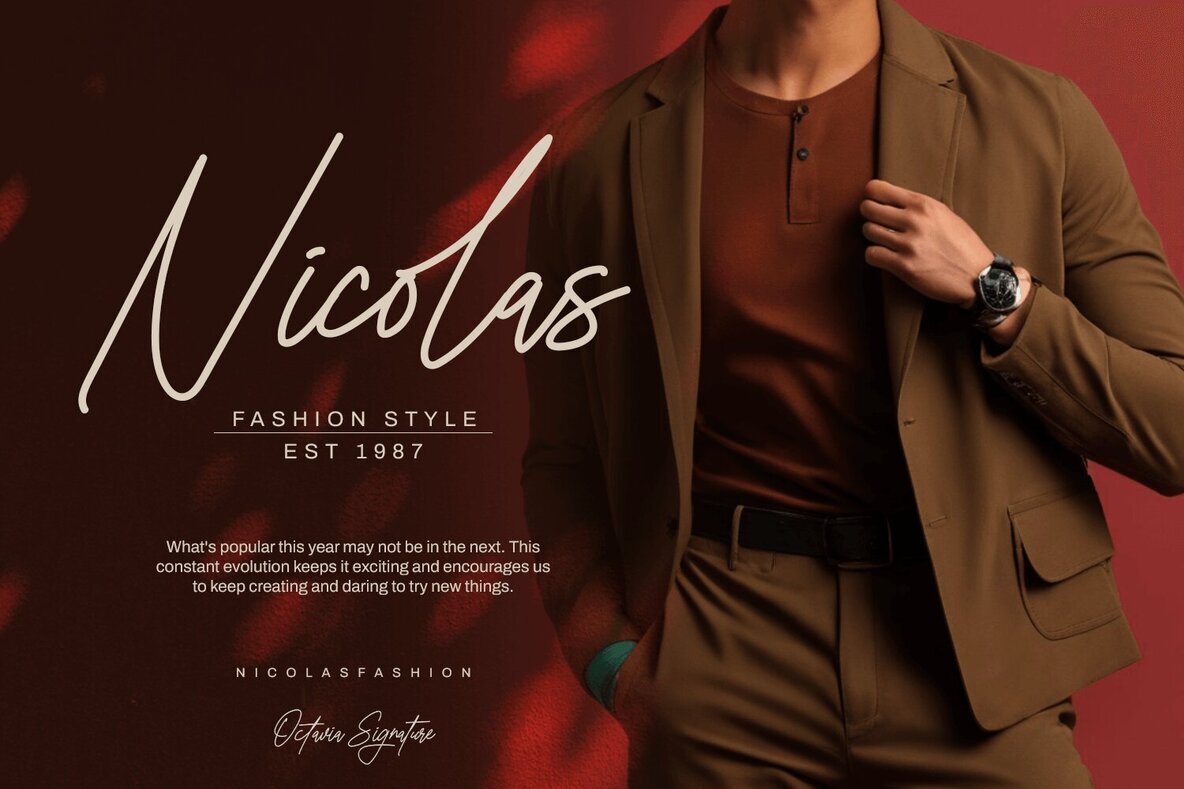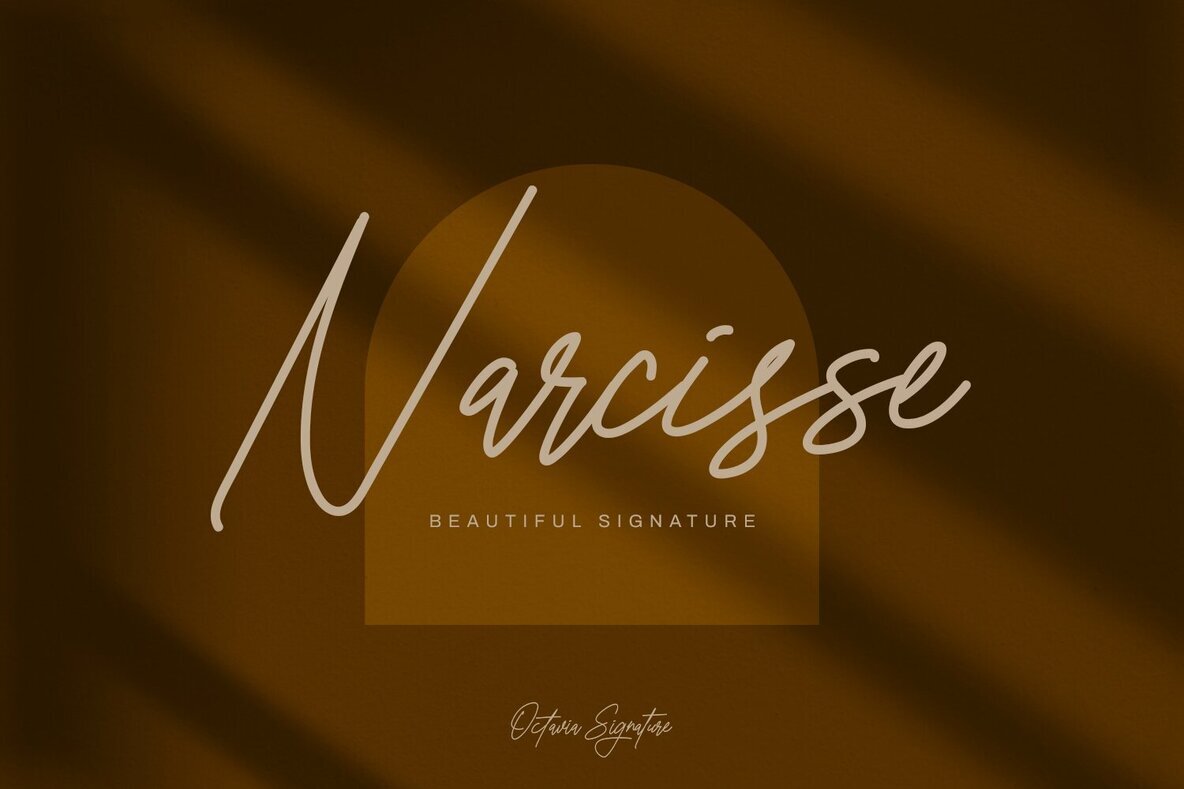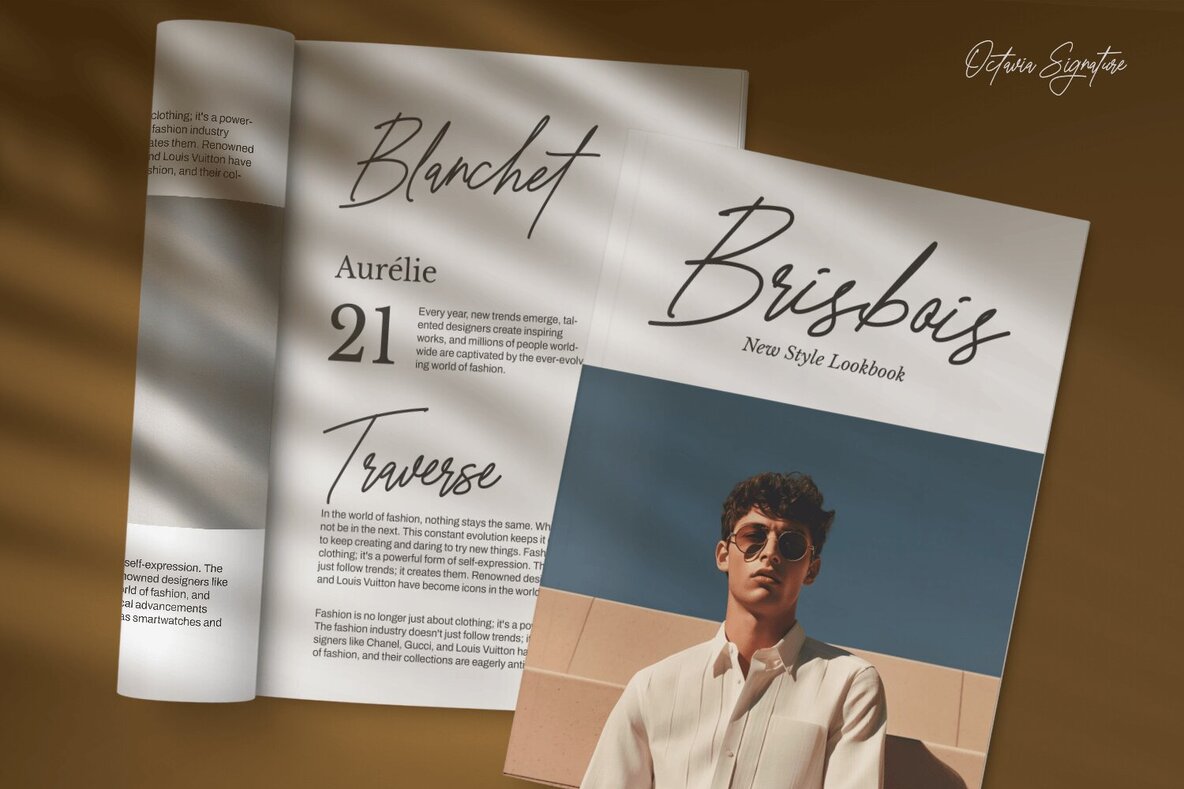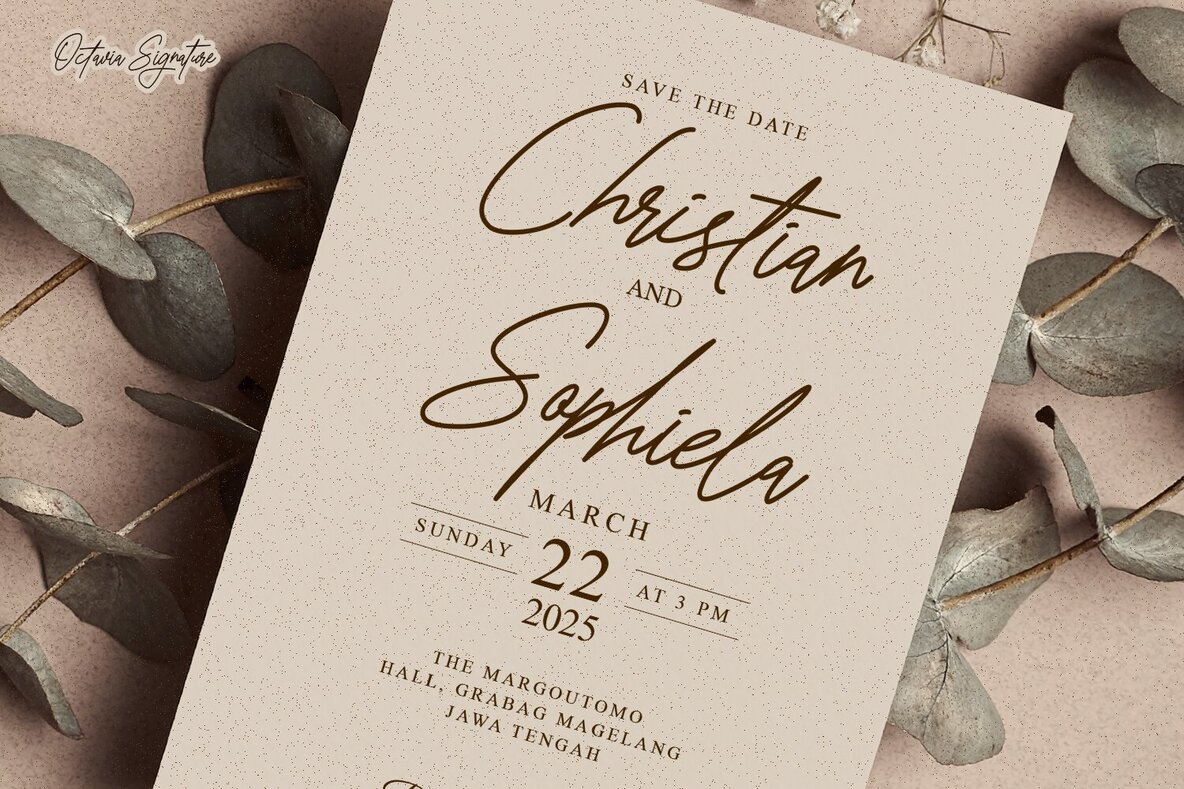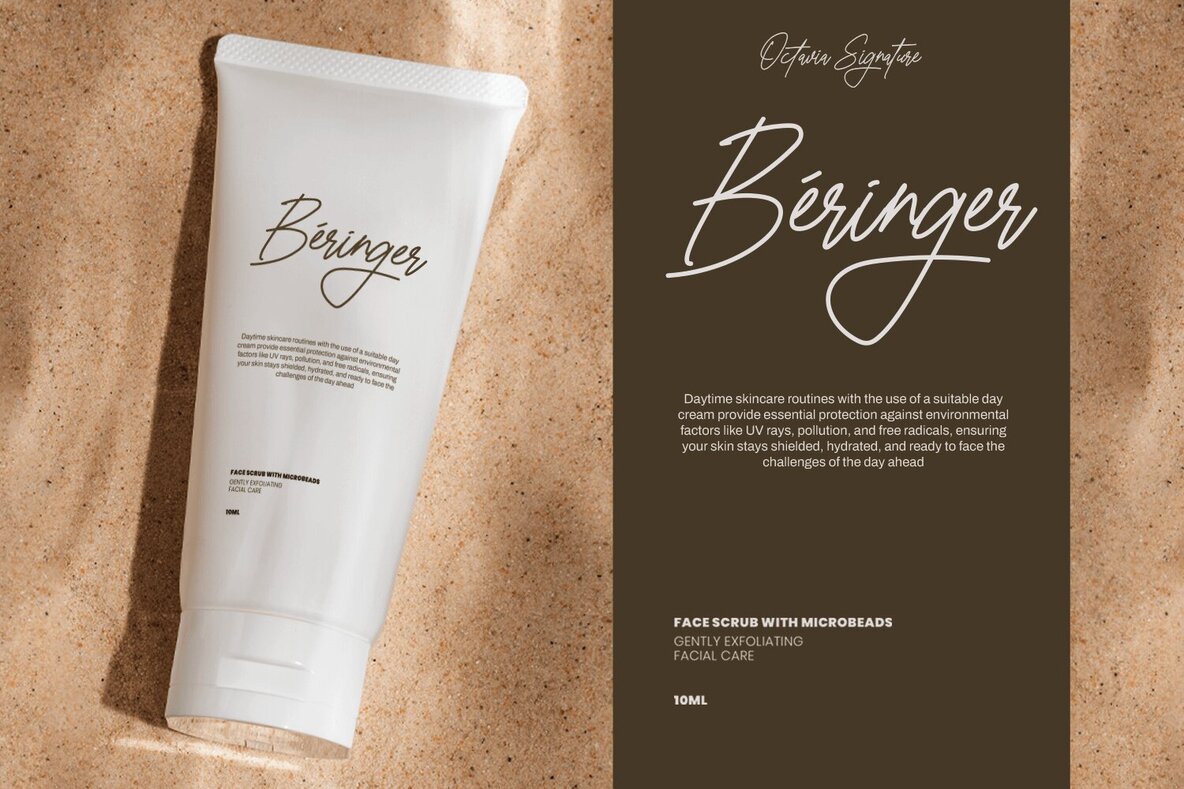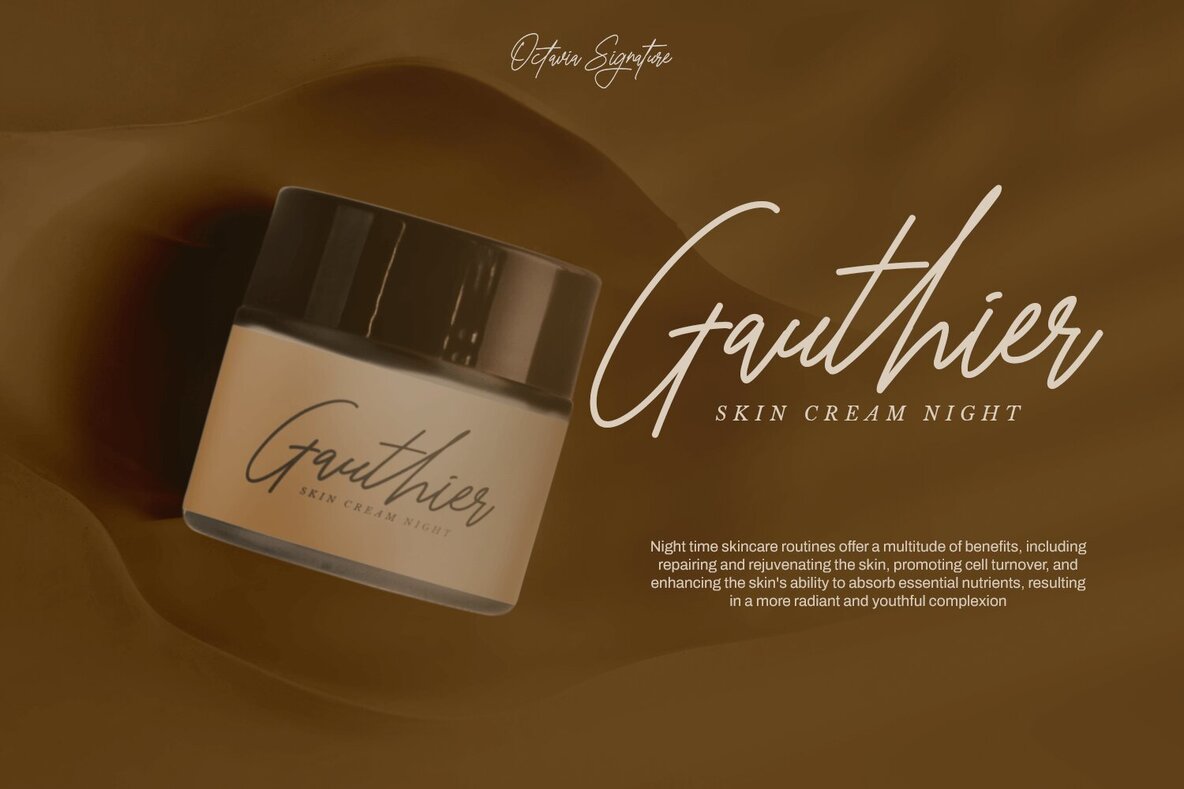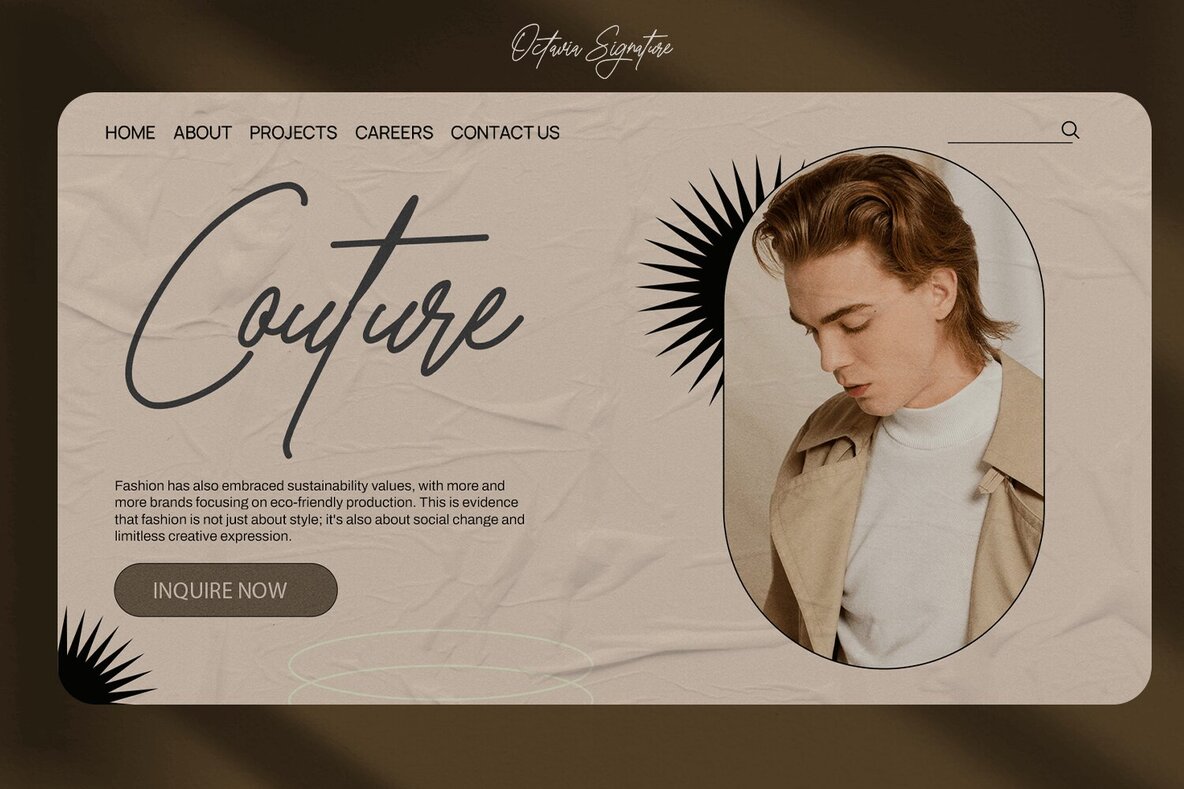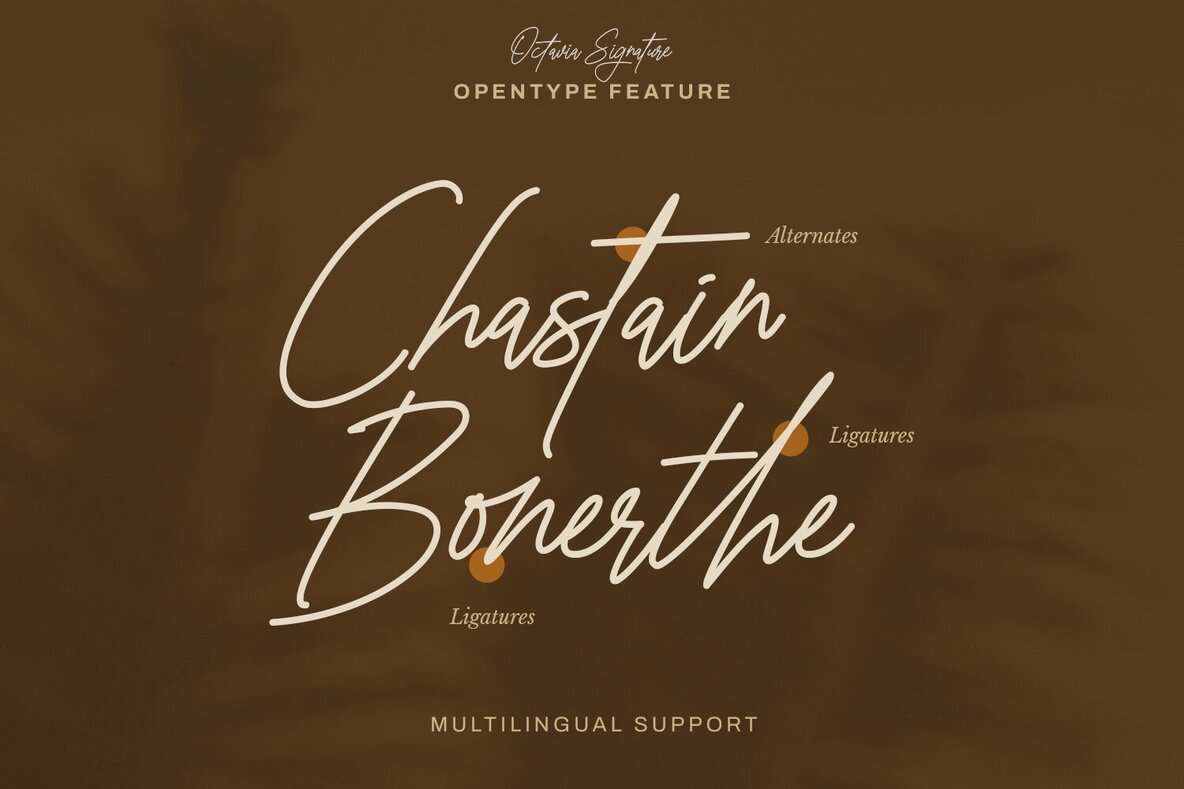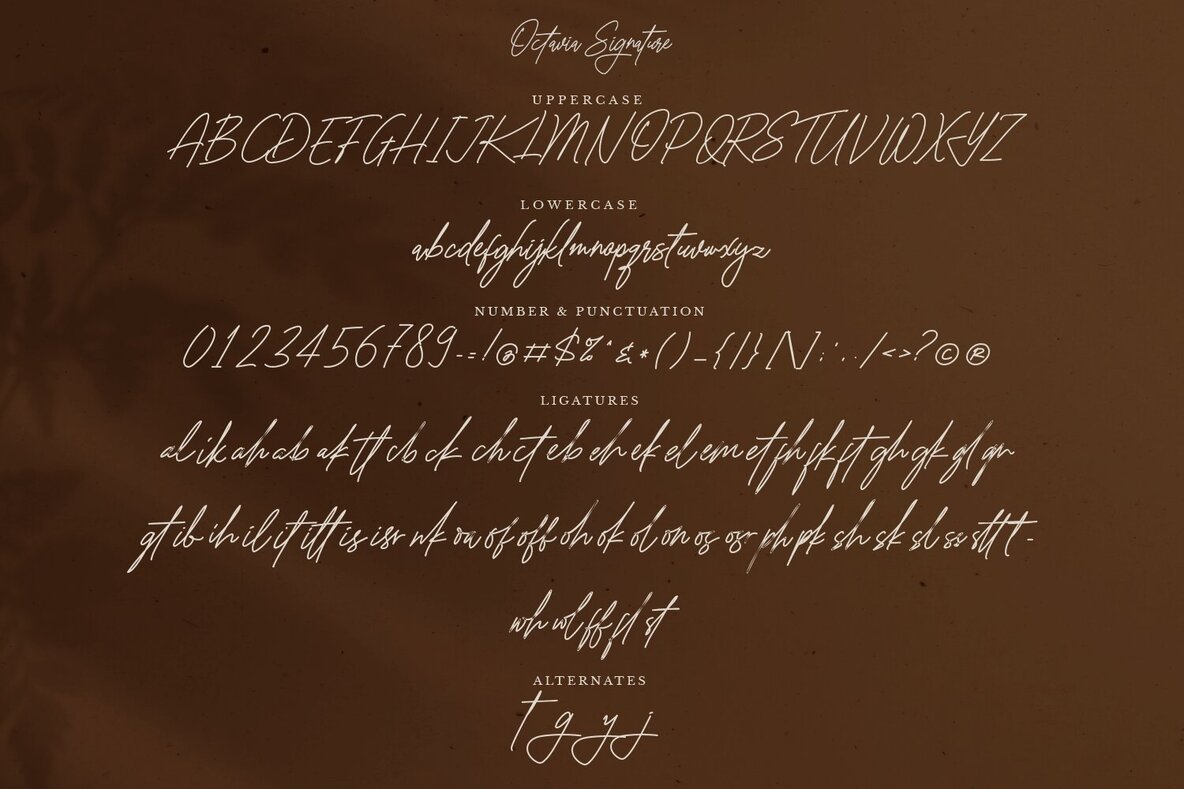
Octavia Signature Font
Octavia Signature Regular
Introducing Octavia Signature— a monoline script font seamlessly blending simplicity and style. With clean lines and graceful curves, this font exudes a warm and inviting feel, ideal for various creative projects. Perfect for branding, logos, wedding designs, social media posts, advertisements, product packaging, labels, photography, watermarks, invitations, stationery, and more. Octavia Signature brings a handwritten touch to your designs.
- Stylistic Alternates
- Uppercase and Lowercase Letters
- Numbers and Punctuation